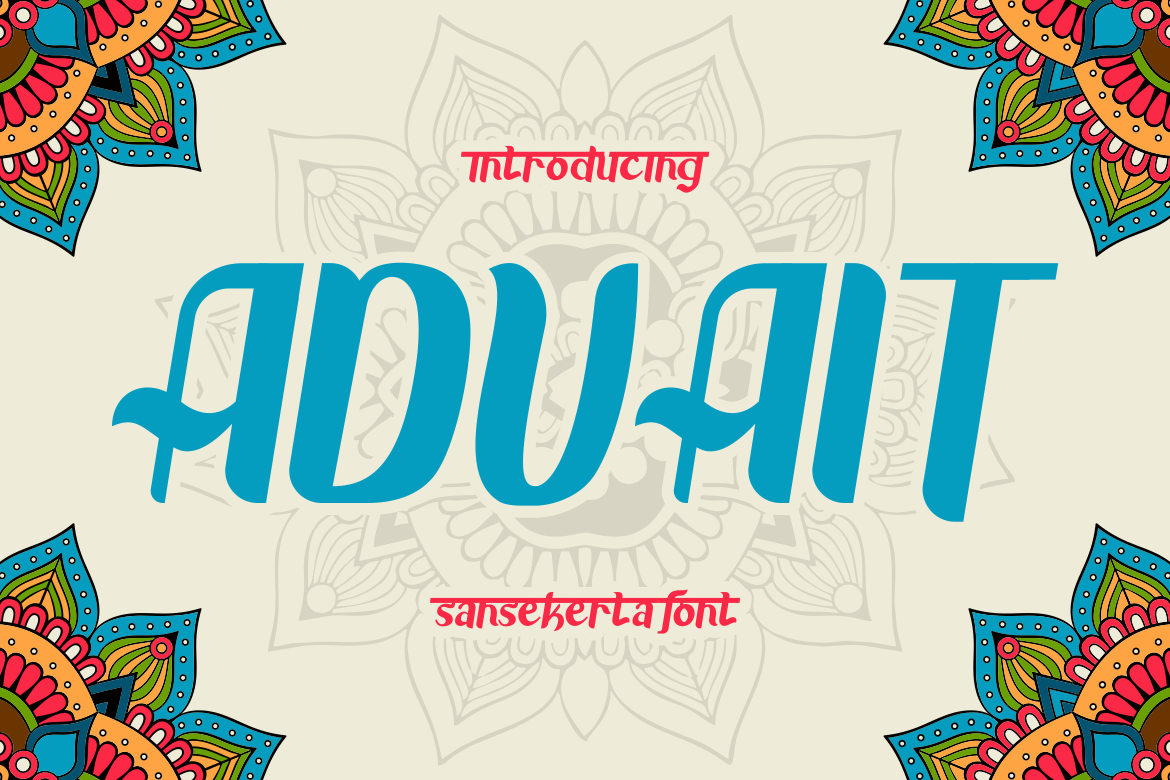
Advait - Sansekerta Font
Introducing Advait - Sansekerta Font, a stunningly crafted display typeface inspired by the classical and ethnic beauty of Indian and Javanese culture. This unique font brings together traditional elements of Sanskrit aesthetics, offering a blend of classic and modern design. With its bold and artistic strokes, Advait stands out as a perfect choice for those looking to add an ethnic touch to their design projects. The intricate details and harmonious curves of this font make it an ideal option for logos, branding, and crafting. Whether you're designing wedding invitations, packaging, or posters, Advait adds a distinctive and sophisticated flair that captures the essence of its cultural roots.
Advait - Sansekerta Font is not just visually appealing but also incredibly versatile. It's perfect for a wide range of applications, including business cards, greeting cards, stickers, children's books, and magazines. The font's unique style makes it suitable for both formal and creative designs, allowing designers to explore endless possibilities. The ethnic and classic charm of Advait can elevate your project, making it memorable and impactful. Whether you're working on a business branding project or creating personalized stationery, this font will bring your vision to life with its captivating and timeless design.